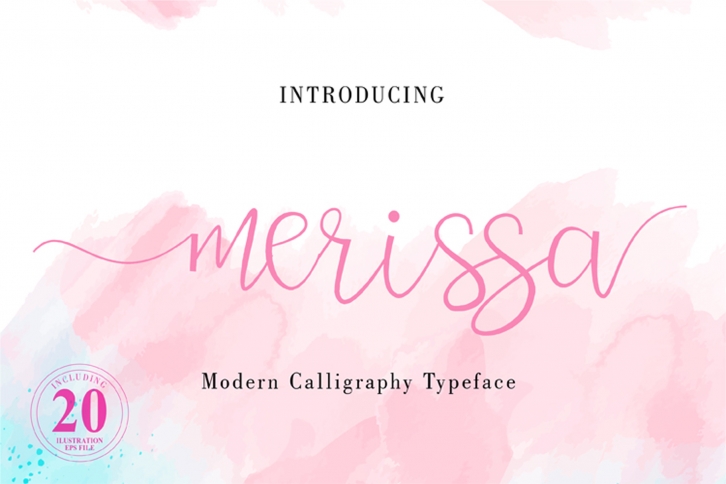
merissa is a beautiful font that was designed by Edcreative. It's a great choice for designers and creatives who need such a font. It was released on July 31, 2019 and the file size is 13.37 MB. merissa may give a more youthful, expressive and casual look to your project. It is a very beautiful, refined, elegant, and high-quality font.